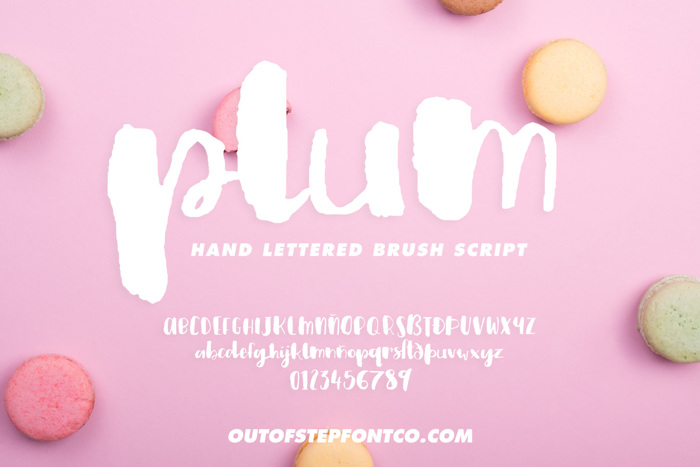
Plum Brush Script Font
Plum Brush Script is a fun little brush script drawn by hand with my Pentel refillable brush pen. For this font, I went all out, and drew a full set of uppercase letters, numbers, punctuation, and accents. Uppercase numbers are based on a top-heavy style that I surprisingly haven't converted to a font yet, even though I have been using it on hand-lettering projects for years. I also went all-out with combining diacritics, generating a wide range of accented characters.